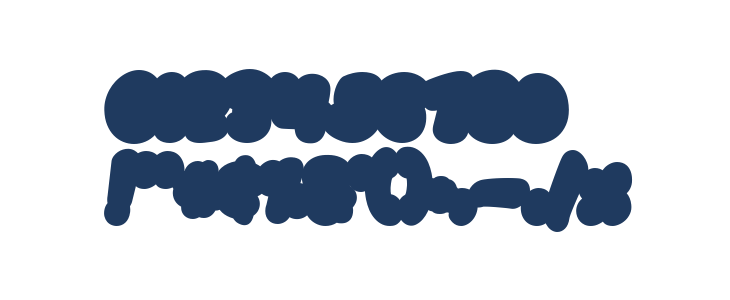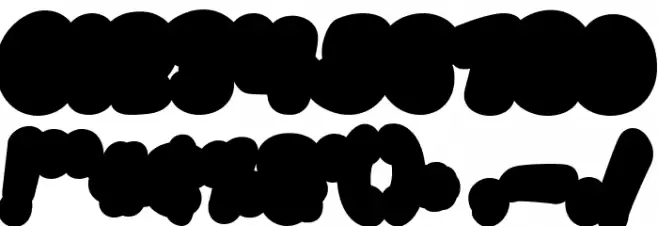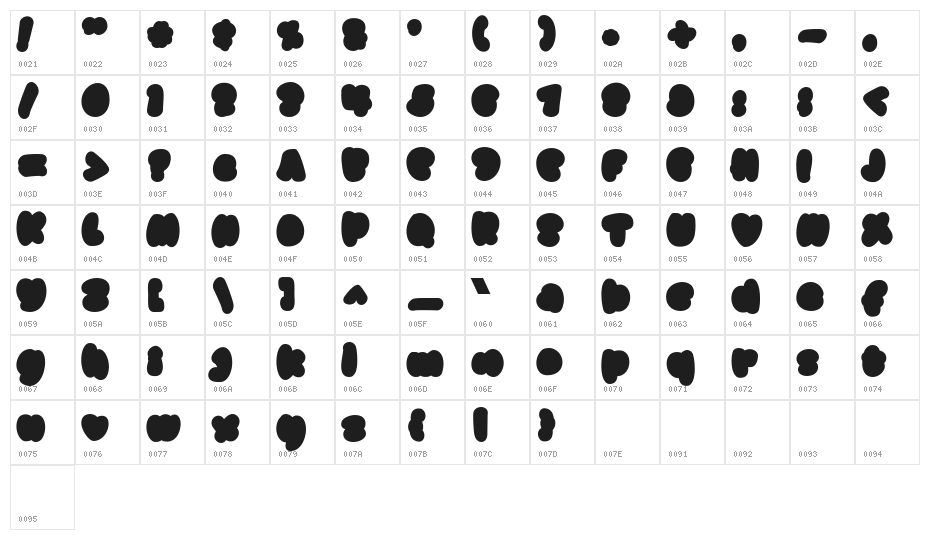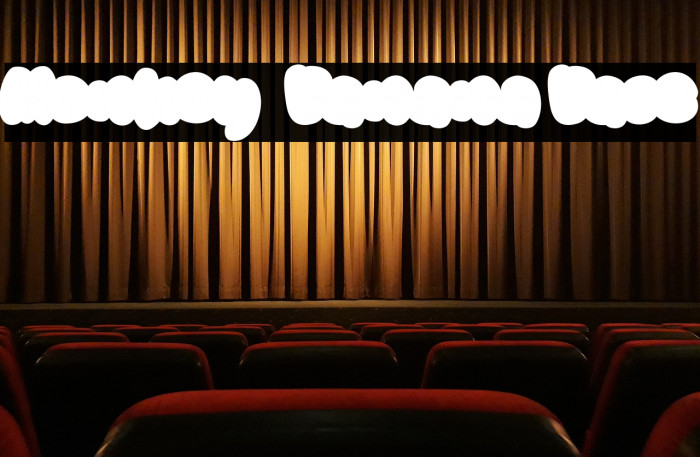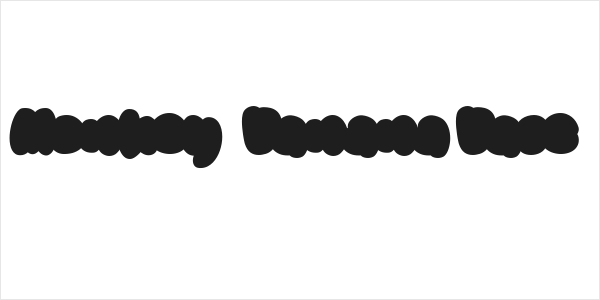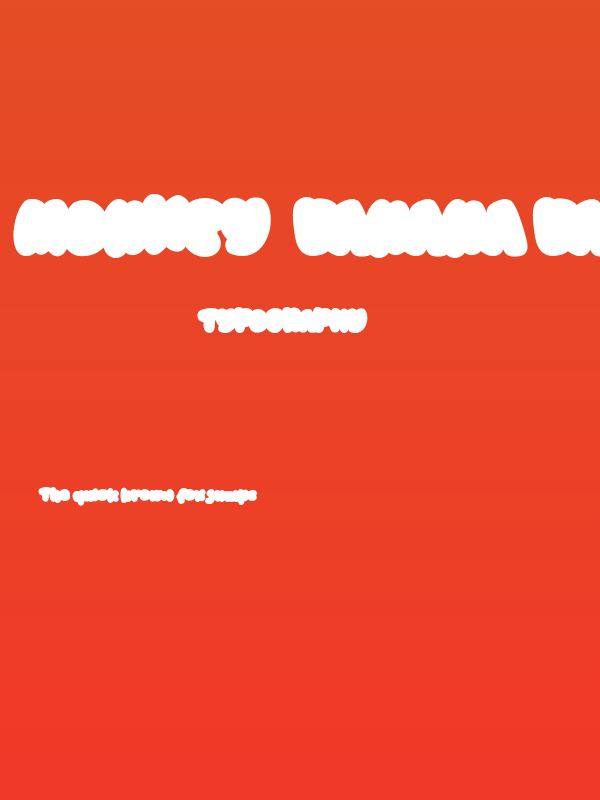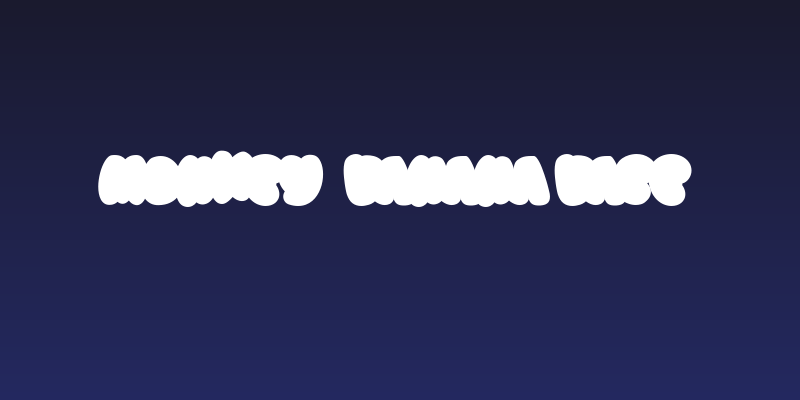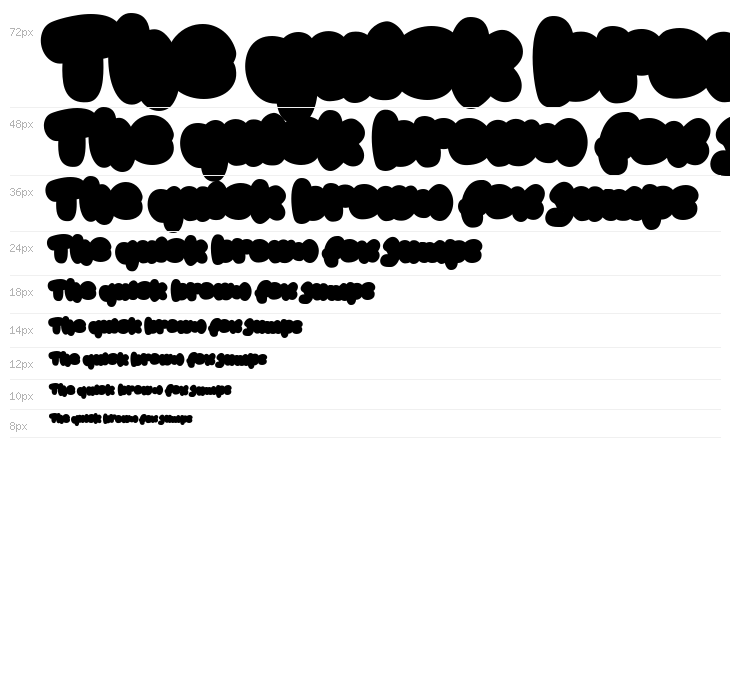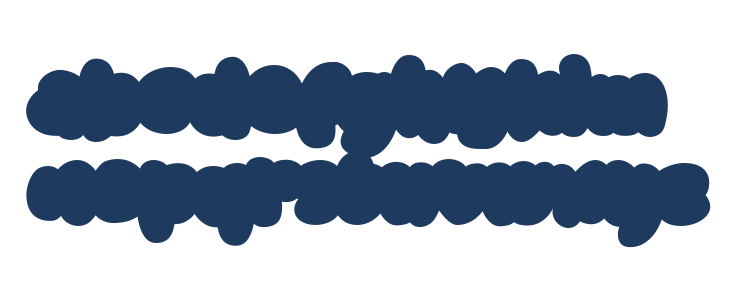
Monkey Banana Base Font
Monkey Banana Base Description
This playful and bold font features a bubbly, rounded style that exudes a sense of fun and whimsy. Each character is heavily weighted, with a consistent thickness throughout, giving it a cartoonish and approachable appearance. The letters are closely packed, creating a cohesive and unified look. The font's exaggerated curves and smooth edges make it ideal for designs that aim to capture attention and convey a lighthearted tone. Its unique style is reminiscent of graffiti art, making it suitable for creative and informal projects.
Overall StylePlayful, Whimsical, Cartoonish
Use CaseLogos, Posters, Children's materials
Proposed ProjectsIdeal for children's books, playful branding, party invitations, and creative posters.